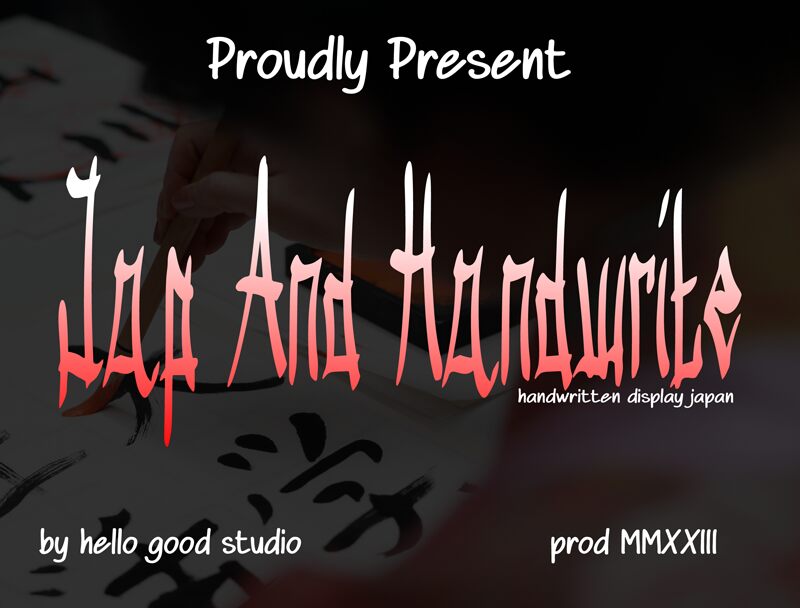
Jap And Handwrite
Jap and Handwrite font by Studio Hello Good combines a calligraphic influence with an expressive flair in a truly unique typographic experience. The Japanese free font evokes gothic undertones through its handcrafted appearance. Every character runs wild with personality through expressionistic, jagged strokes.
Use it for posters, experiment art, sociology, muted culture books, museum event cards and flyers. It’s also perfect for social media posts – especially for Instagram stories and TikTok Reels. Other uses involve historic documentaries or even app/game development.